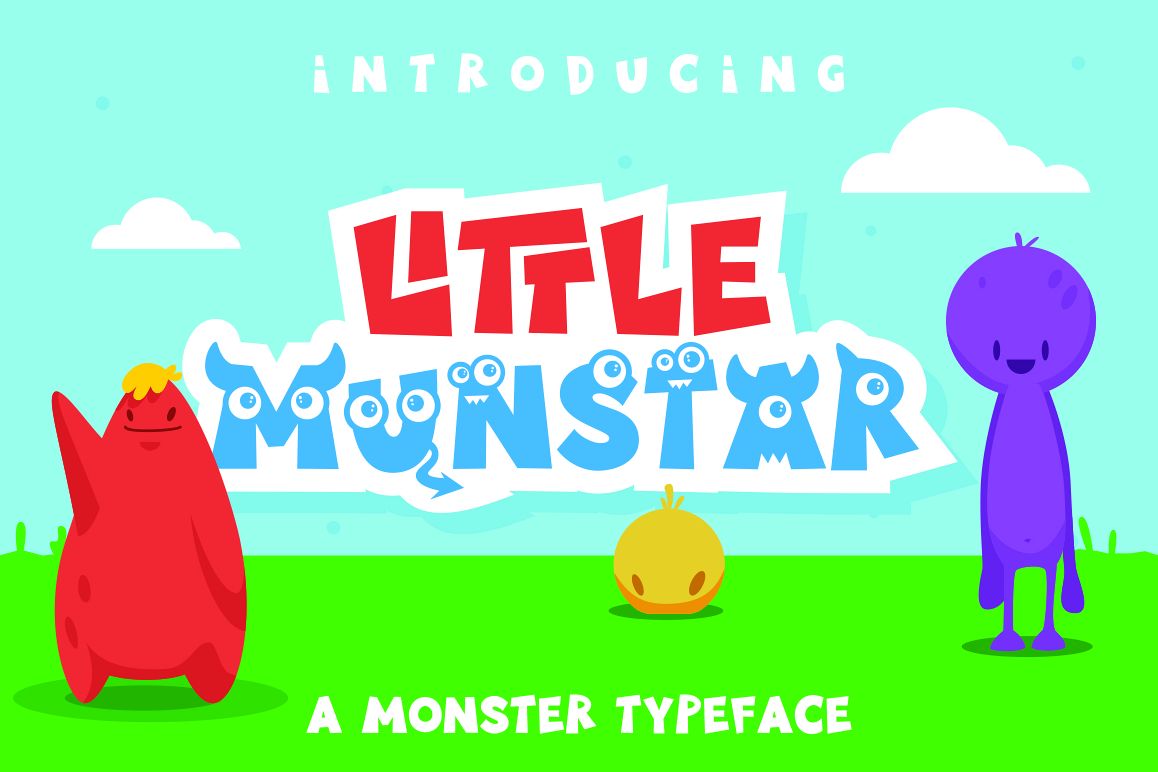
Little Munstar - A Monster Font
Little Munstar is a Monster inspired font. Perfect for Halloween projects and general Little Monsters inspired crafts/giftware
All Capital letters are monster related